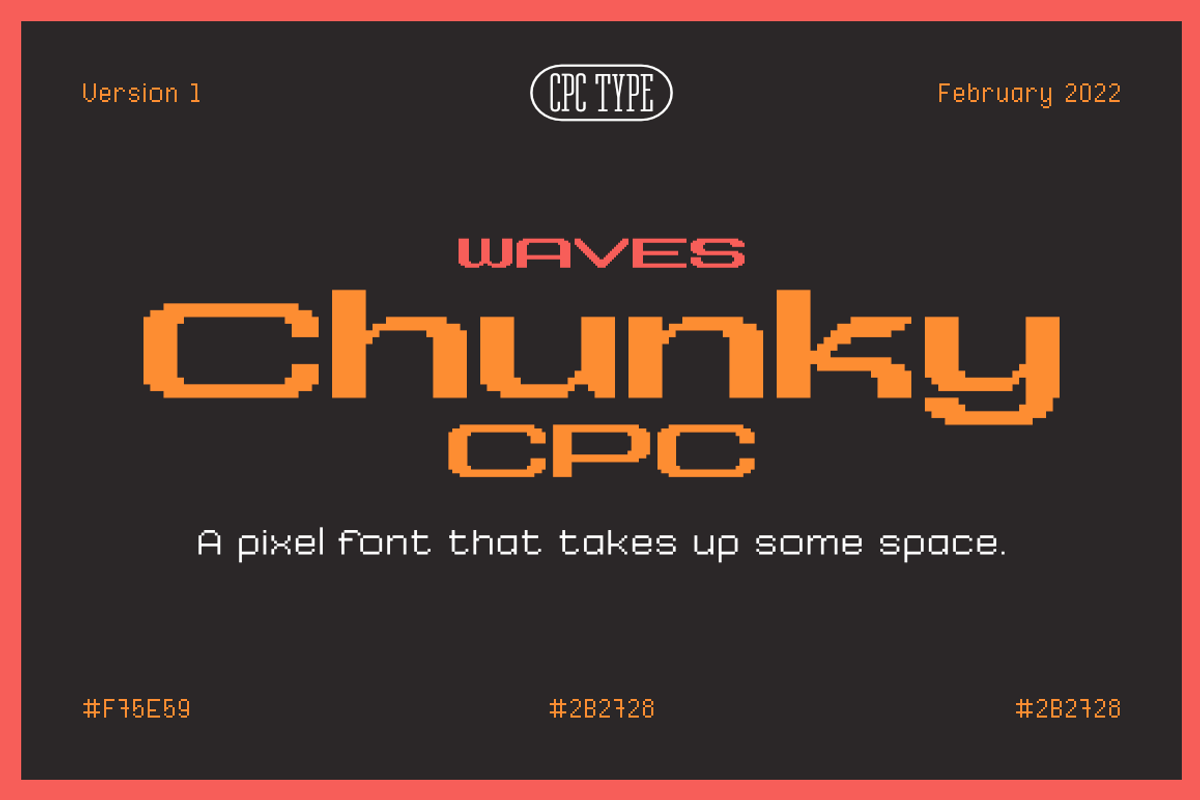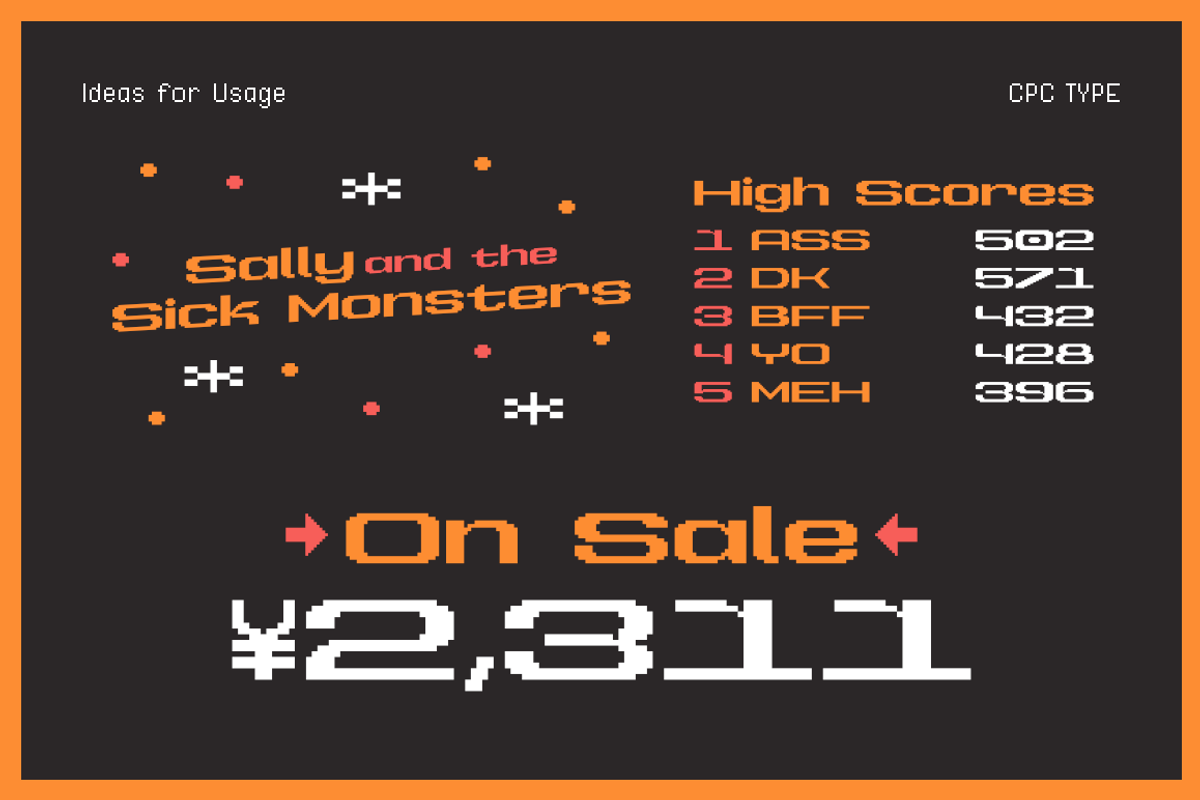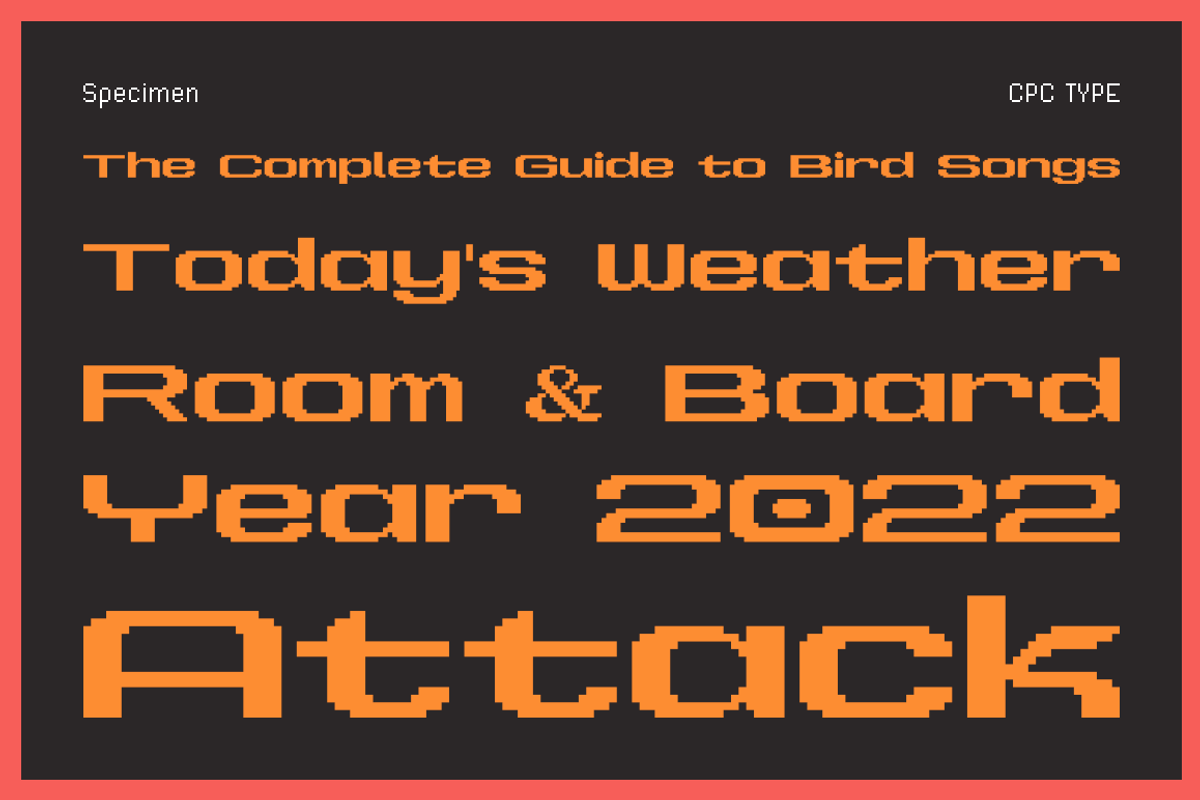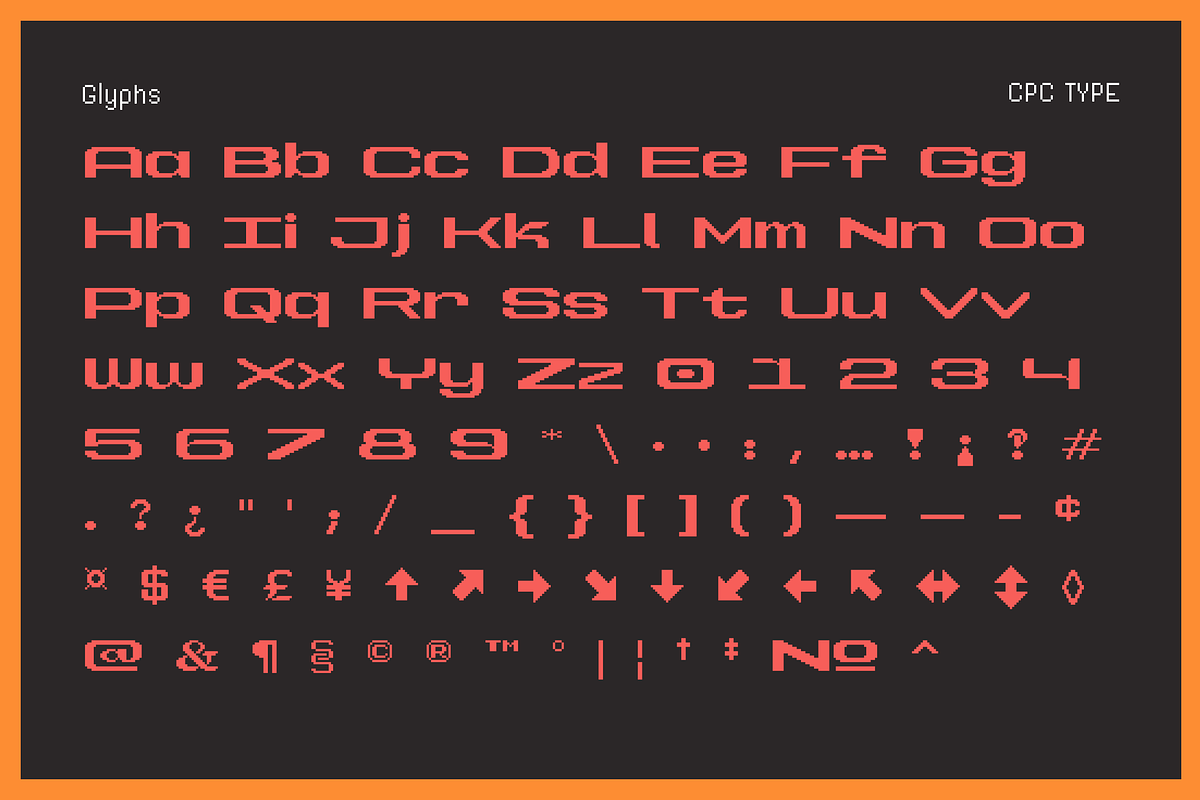
Waves Chunky CPC
A pixel font that takes up some space.
I listened to a lot of synthwave during the making of this font and inspiration sparked from watching sci-fi films. It's large and chunky and can fit in a lot of your retro looking designs. Waves Chunky CPC is part of my pixel type family.
- Basic character set
- Punctuations & Symbols
Ideas for Usage
- Sci-fi film titles
- Video games
- Synthwave music videos